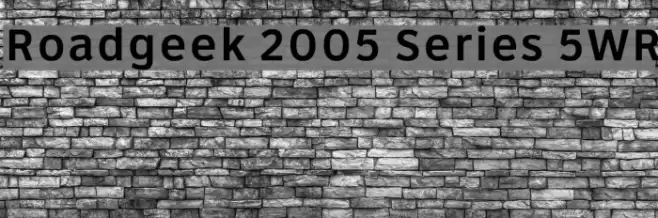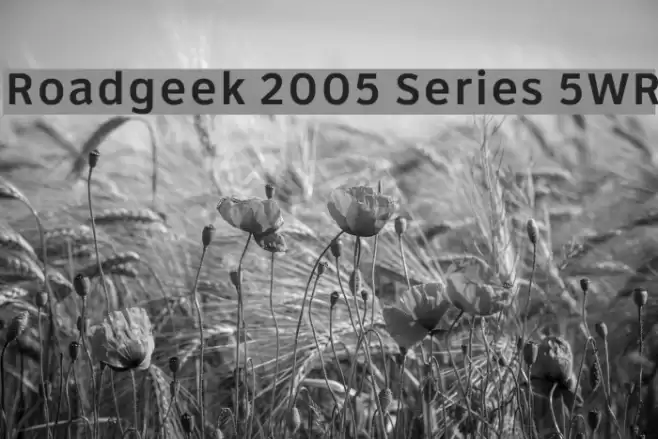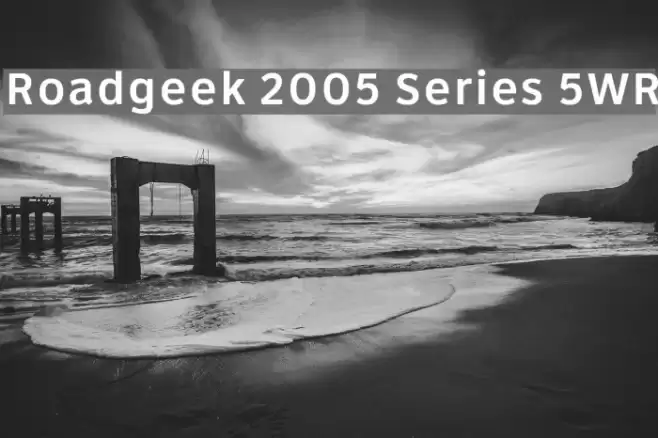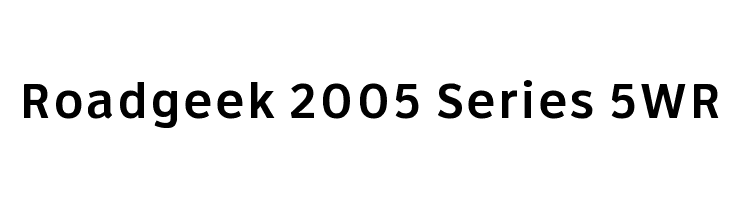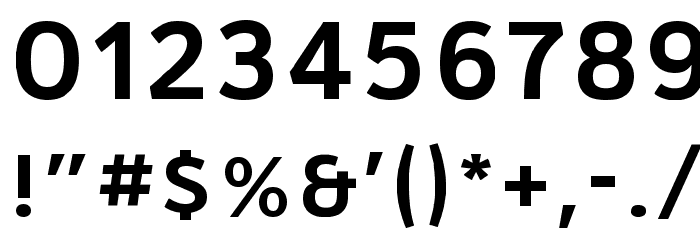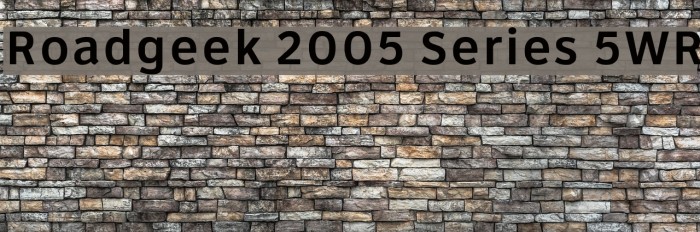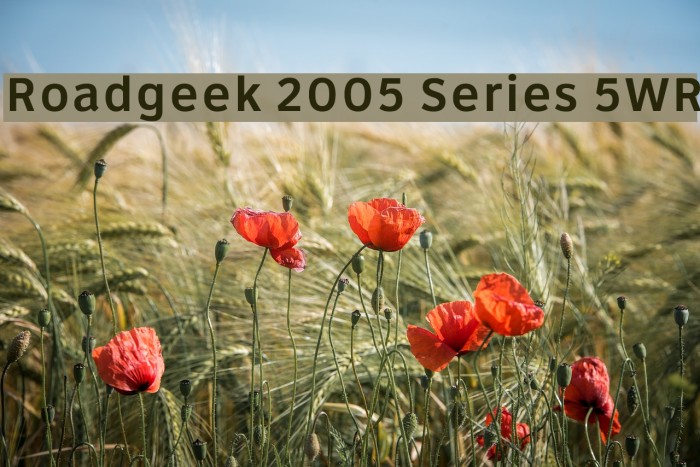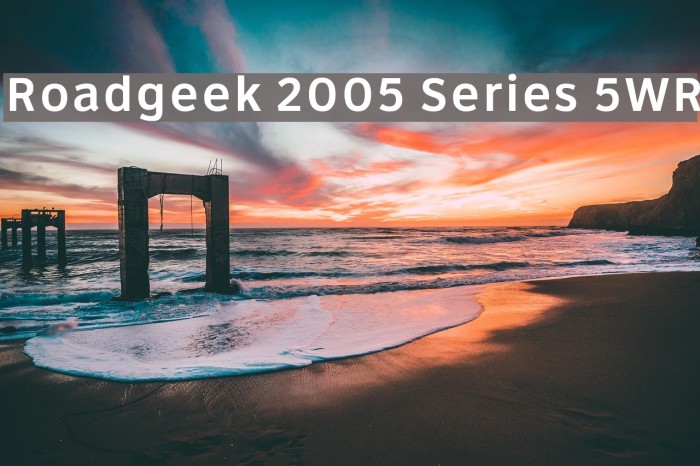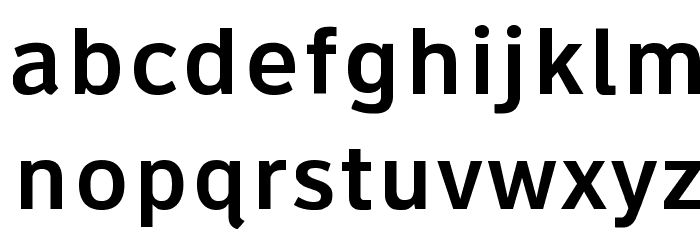
Roadgeek 2005 Series 5WR Font
Roadgeek 2005 Series 5WR Description
This font features a clean and modern sans-serif design, characterized by its straightforward and highly legible letterforms. The characters are evenly spaced, contributing to its readability, making it suitable for various applications. The uppercase letters are bold and assertive, while the lowercase letters maintain a consistent style that complements the overall design. The numerals are clear and distinct, ensuring easy recognition. Special characters are well-integrated, maintaining the font's cohesive appearance. This font's simplicity and clarity make it ideal for signage, digital displays, and other contexts where readability is paramount.
A modern, clean sans-serif font with high readability from Sans Serif fonts.
- Proposed Projects: Ideal for road signage, digital displays, user interfaces, and instructional materials.
- Use Case: Headlines, Signage, Digital displays